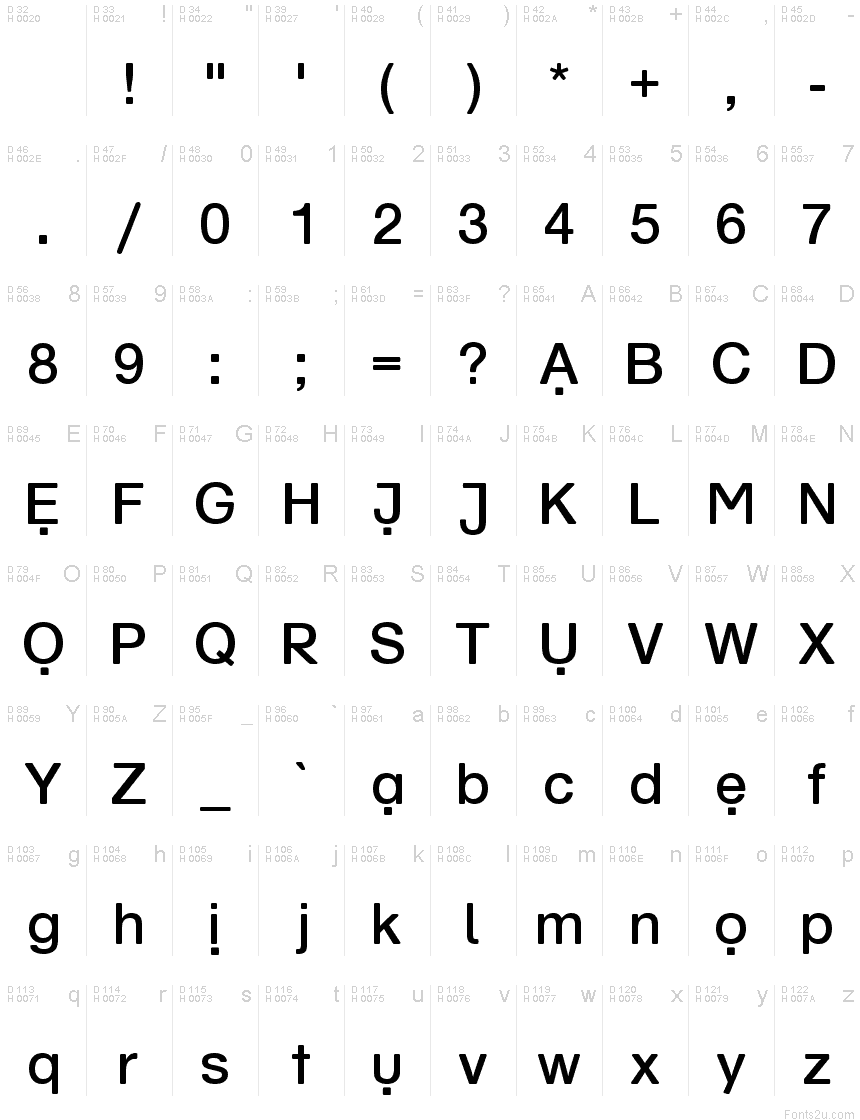
SchulVokalDots
Schul Vokal Dots by M. Klein is a free schoolbook sans with a calm, primer-like tone. The letters are plain, rounded, and friendly, but the telling idea is the detached dot used as a teaching cue, giving the font a classroom feel rather than a slick editorial one.
This free font makes most sense anywhere reading and sound need to meet on the page: early-learning worksheets, phonics cards, classroom posters, literacy handouts, and simple educational book covers. It also suits short headings, labels, and title lines for children's materials, because the dot motif turns ordinary lettering into something that feels visibly guided and instructional.